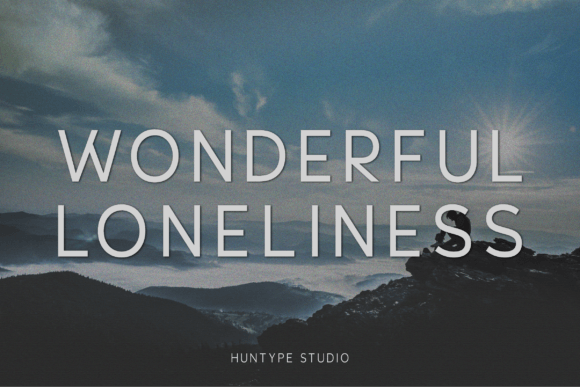
Introducing Wonderful Loneliness, the captivating sans serif font that will leave you spellbound. Its majestic all-caps letters exude a sense of elegance and sophistication, making it the perfect choice for creating stunning logos, branding, and web headings.
With its smooth, clean lines and a touch of contrast, Wonderful Loneliness adds a touch of charm and personality to your designs. Its versatility knows no bounds, making it ideal for a wide range of projects, from minimalist designs to bold and eye-catching statements.
Step into the world of Wonderful Loneliness and let your creativity soar. Its timeless beauty will elevate your designs to new heights, leaving a lasting impression on your audience.
**Key features of Wonderful Loneliness:**
* All-caps sans serif font
* Smooth and clean lines with a touch of contrast
* Versatile and suitable for a wide range of projects
* Perfect for logos, branding, and web headings
* Eye-catching and captivating design
**Why choose Wonderful Loneliness?**
* Create stunning logos that command attention and leave a lasting impression
* Elevate your branding with a font that exudes elegance and sophistication
* Design web headings that captivate your audience and draw them into your content
* Stand out from the crowd with a font that is both unique and versatile